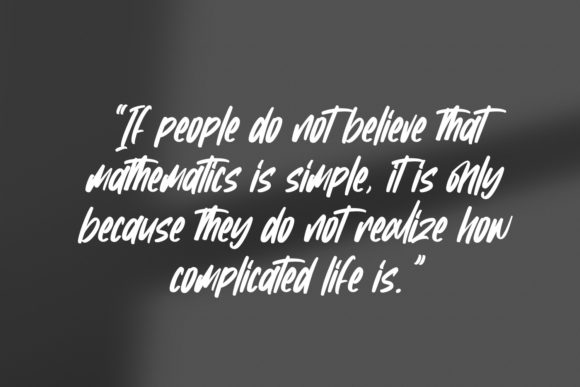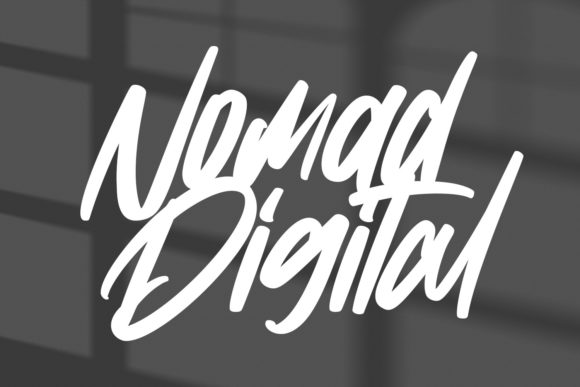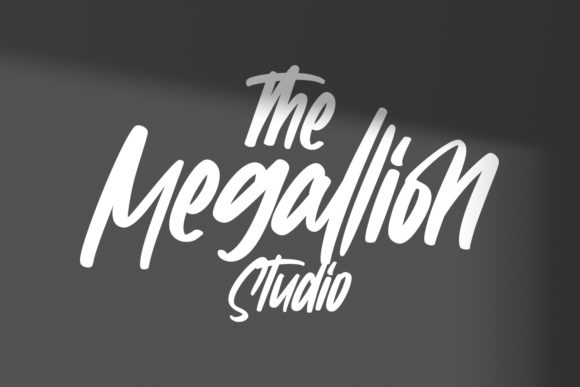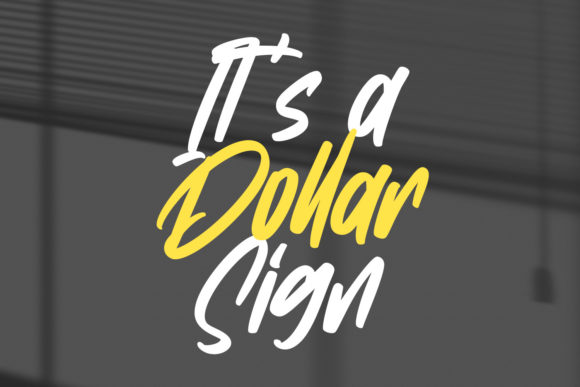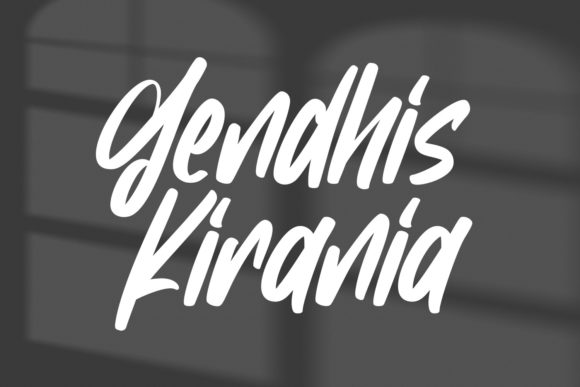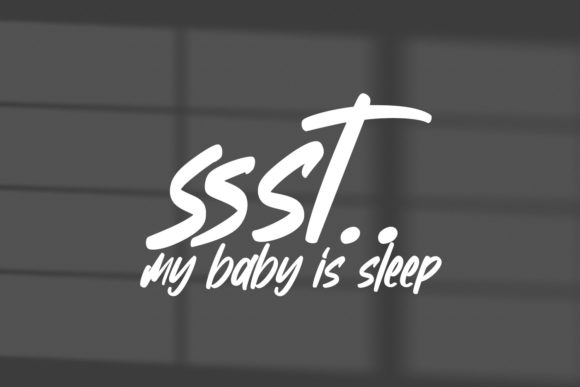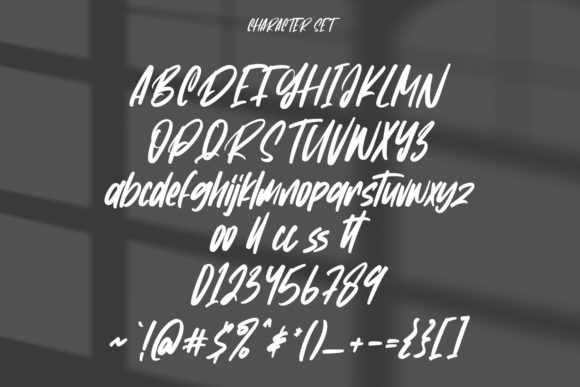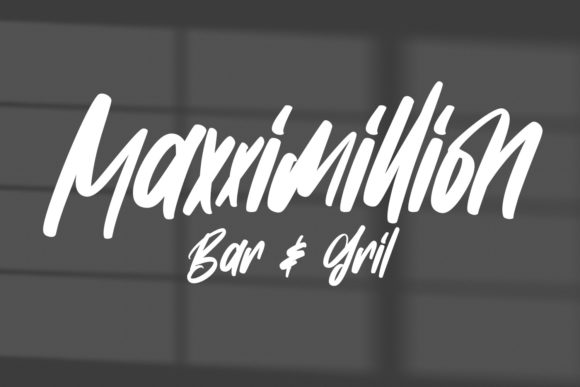
Superfurry Font
About Superfurry Font
Superfurry is a casual handwritten font. With regular contrast strokes, fun characters, and stylish touch, this font will elevate the appearance of any creative project!